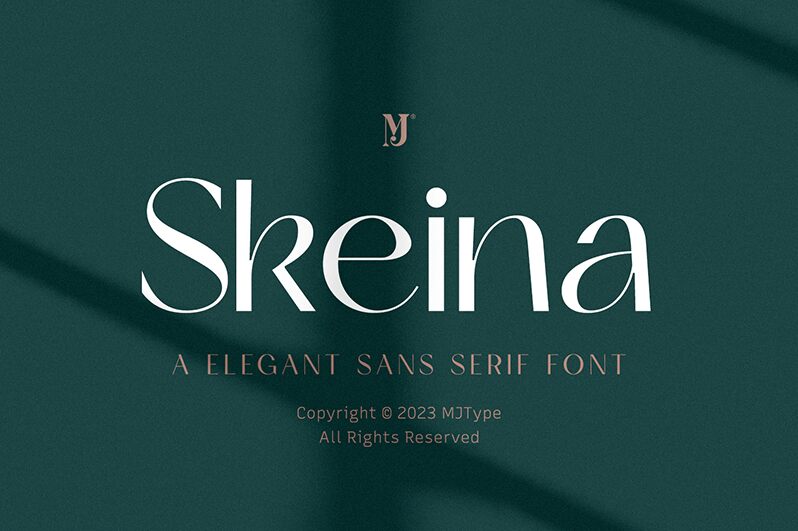
Skeina Regular
Skeina's semi-light weight adds a touch of delicacy to its sleek and modern design, making it ideal for branding and logo creation. Its clean lines and legibility make it perfect for body text in magazines and editorial layouts. With its refined elegance, Skeina is also a great choice for wedding invitations and luxury stationery. Its versatility extends to digital projects as well, such as website headers and user interfaces, where it can bring a sense of professionalism and sophistication.
Whether used in print or digital media, Skeina is the perfect choice for those seeking an effortlessly stylish font with timeless appeal.